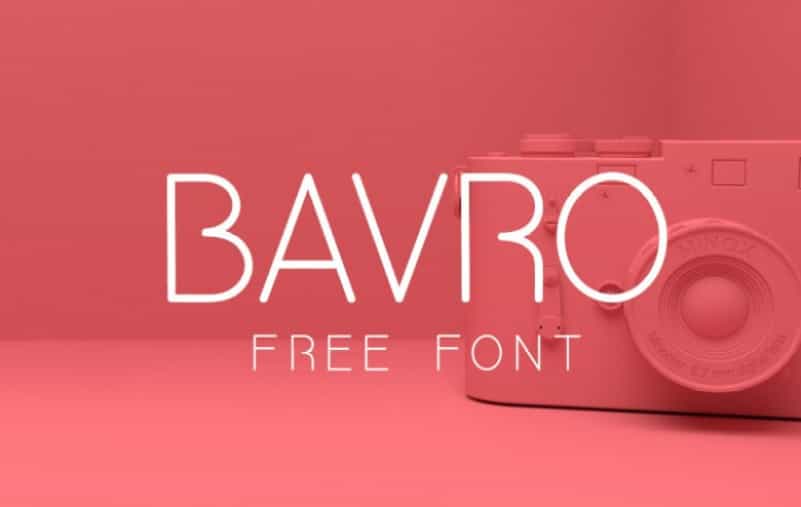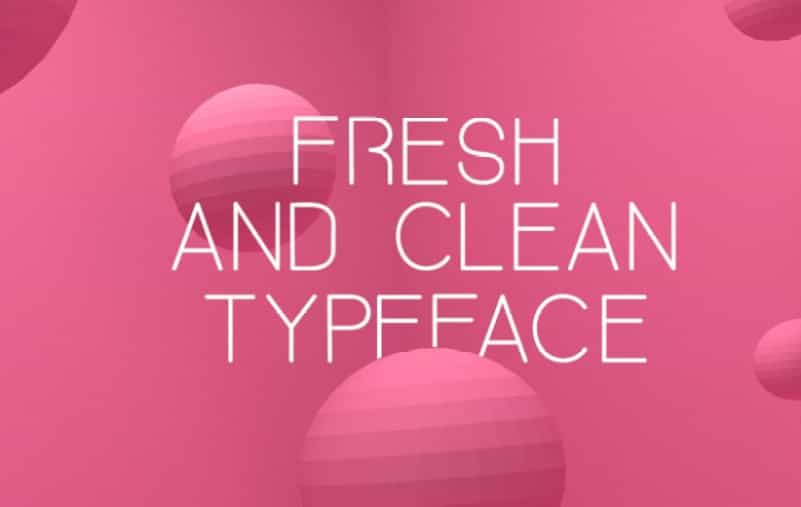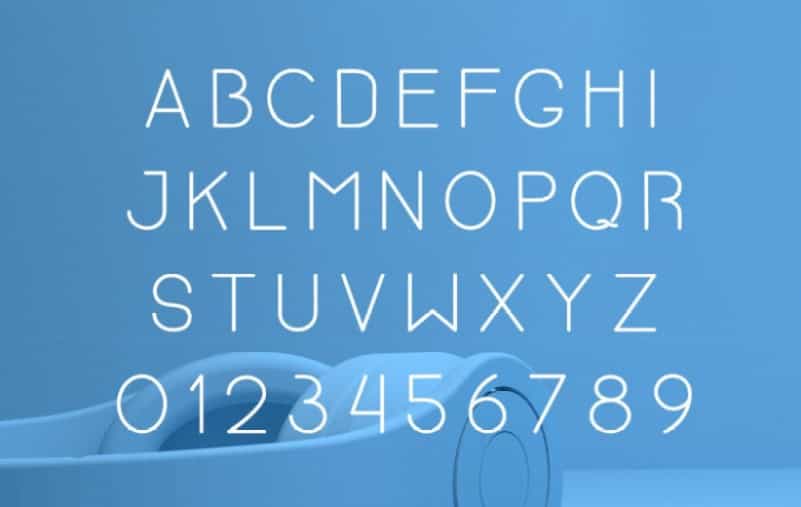
Discover Bavro Font, part of the Sans Serif Basic collection—a versatile and unique font perfect for adding a personal touch to your projects. Download it for free and enjoy crafting designs with style, from invitations to social media posts. This font is available exclusively for personal use, giving you the freedom to create without limits. Unlock your creativity with Bavro Font today!
Bavro is an inspired by geometric and minimalist styles and shared through Twicolabs Fontdation as its type foundry. This elegant font is of the sans-serif type and is equipped with all caps and stylistic sets; suitable for a variety of applications for example banners for advertising logos for brands or magazines fashion etc.